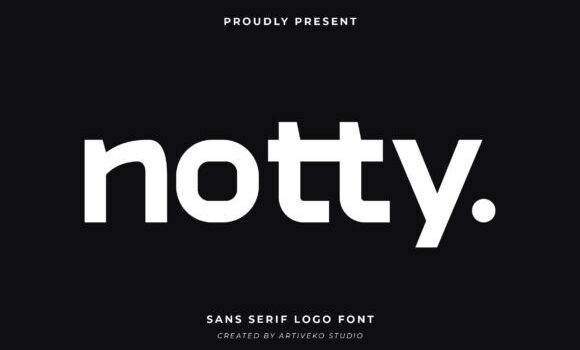
Notty Font – Free Download Introduction to Notty Font Notty is a sharp and stylish sans serif font crafted specifically for modern branding and logo creation. 📸 Preview Gallery 6 images 📌 Product Name Notty Font 👤 Author Artiveko 📂